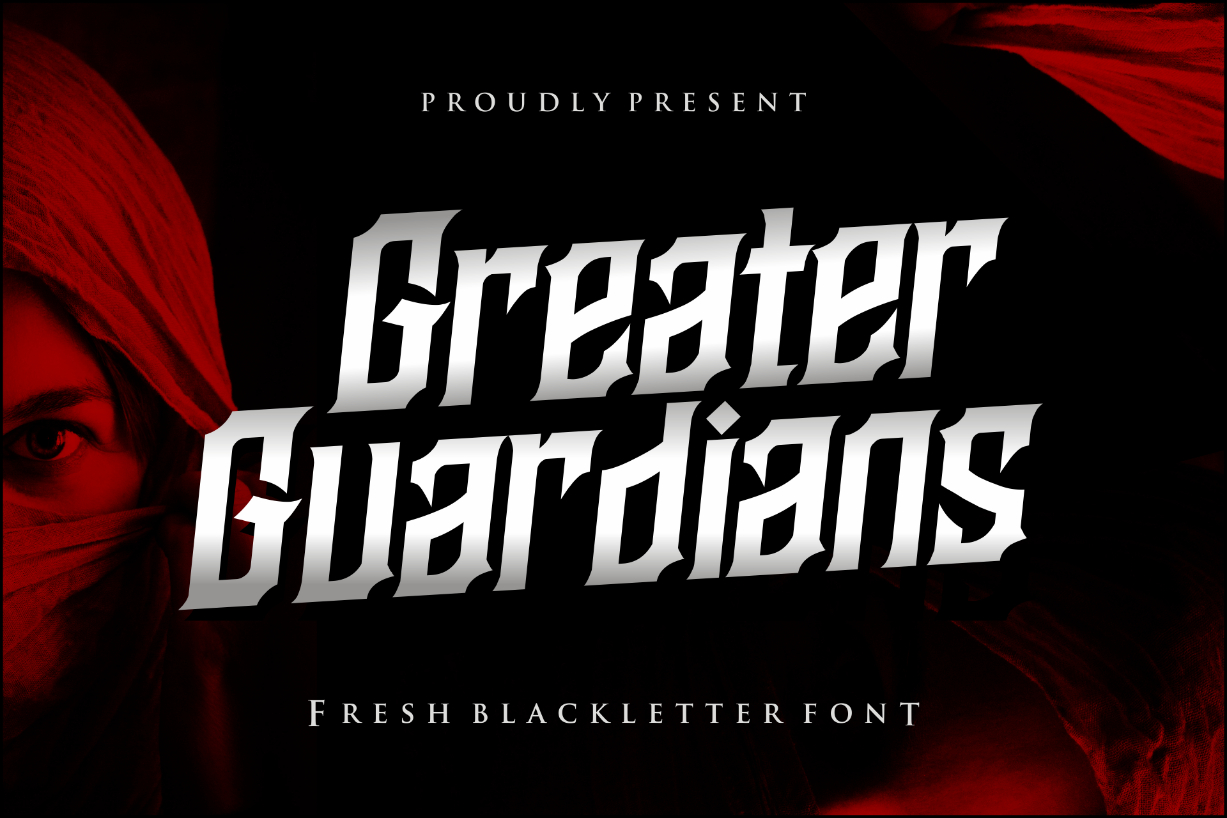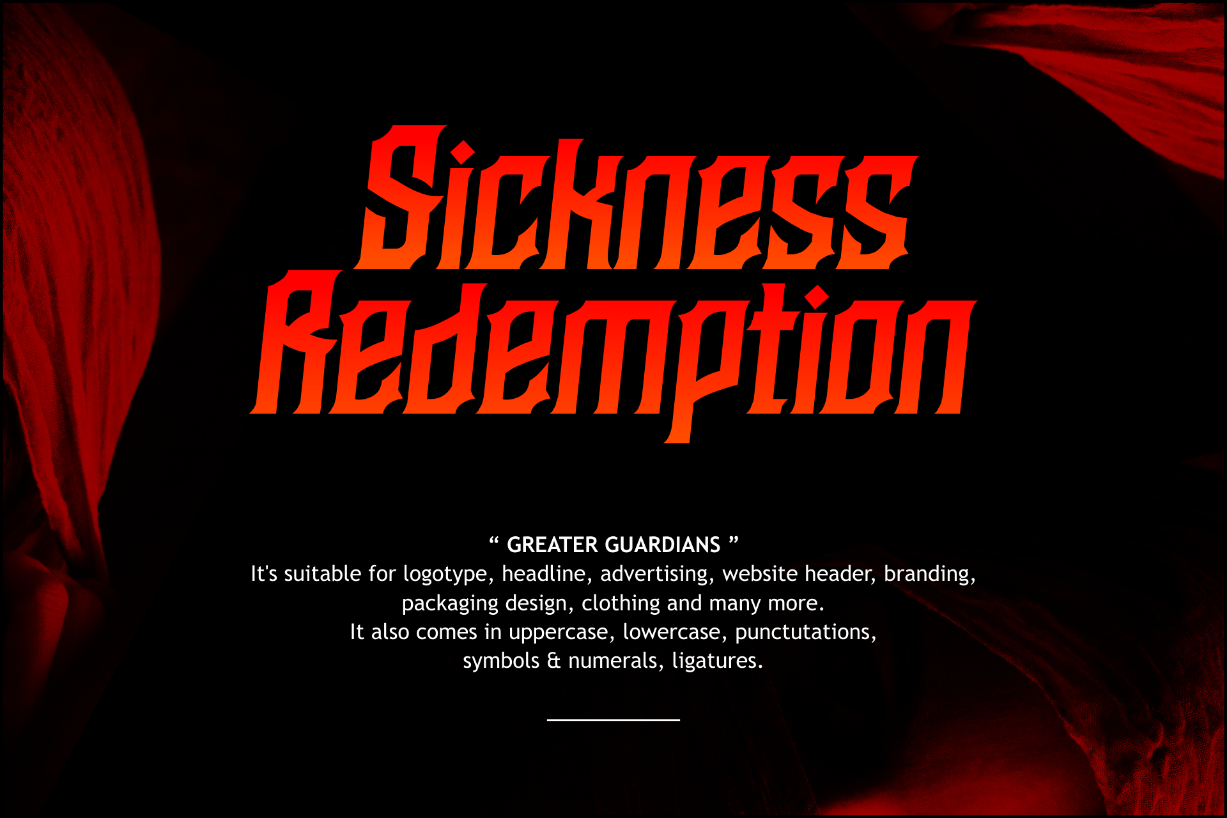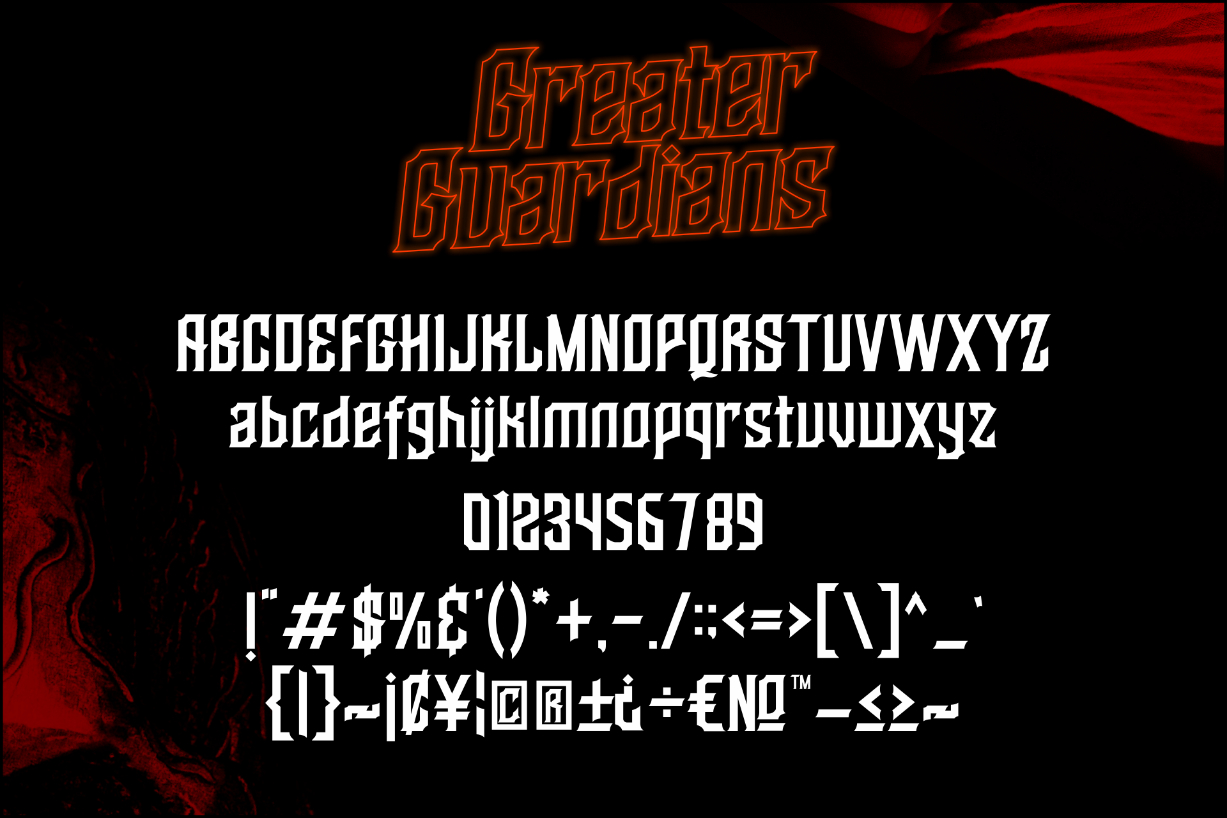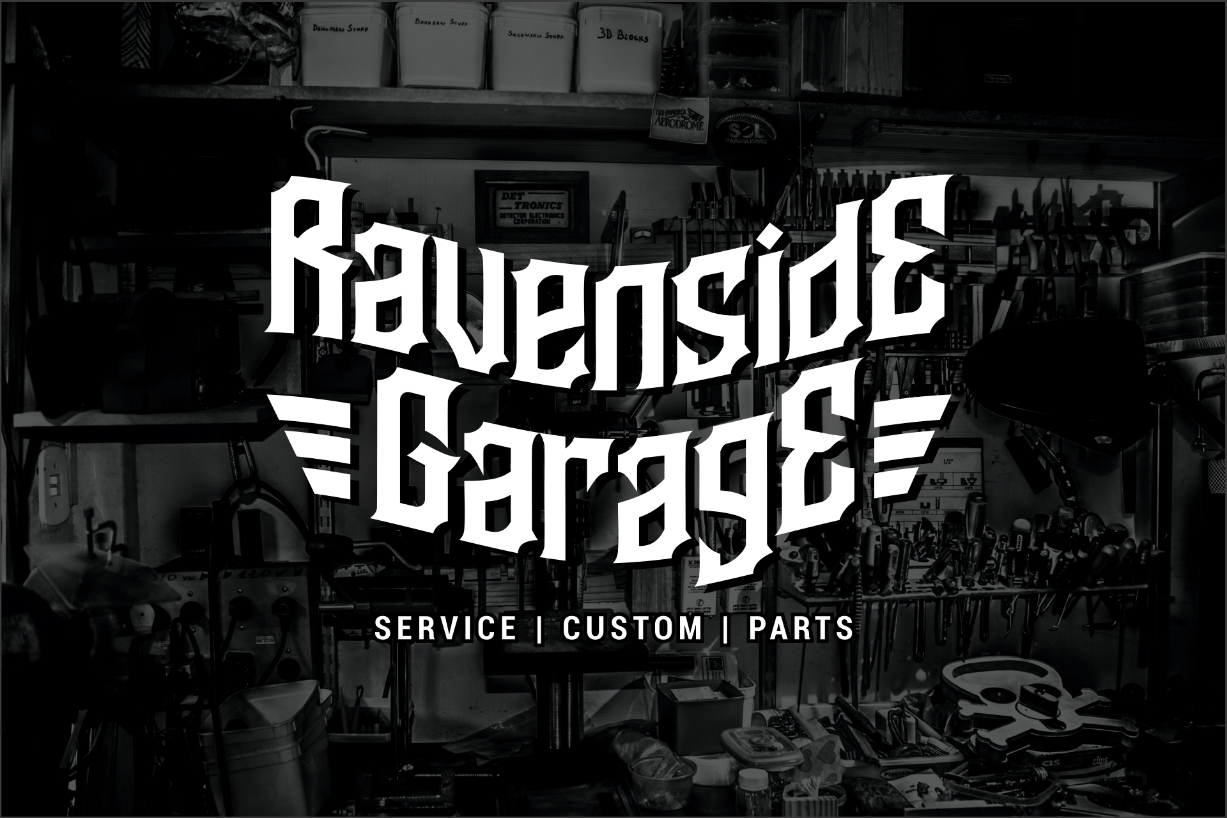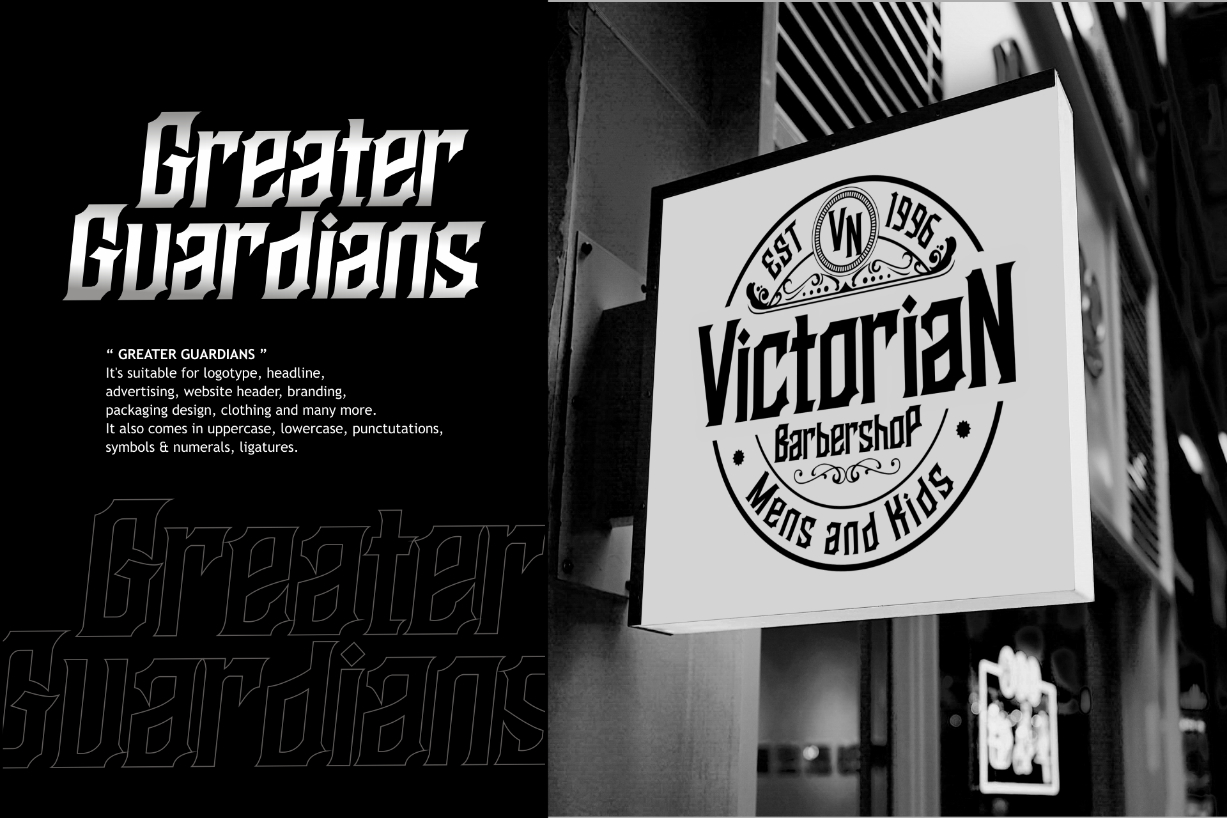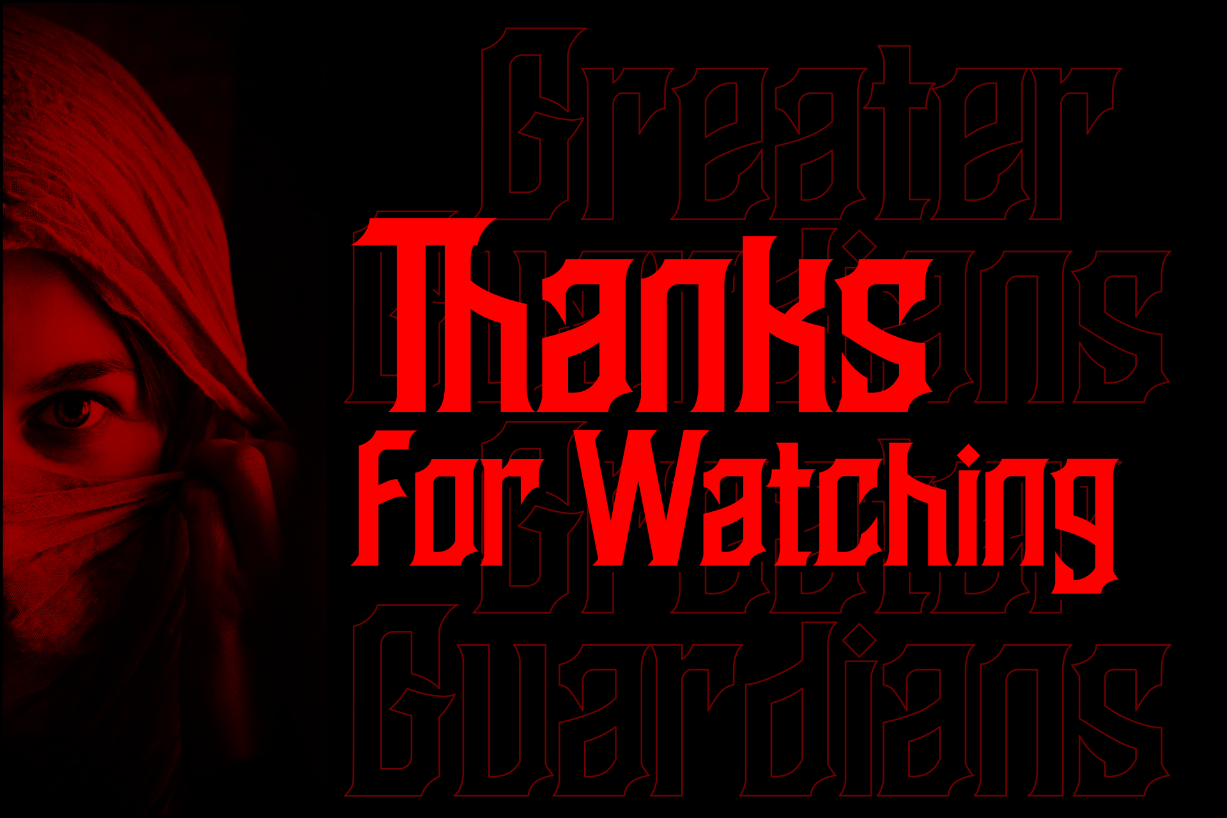
Greater Guardians Font
About Greater Guardians Font
Greater Guardians is a modern blackletter font. This typeface is perfect for vintage or modern logos and other formal projects such as branding, headlines, product packaging, clothing, tags, etc.